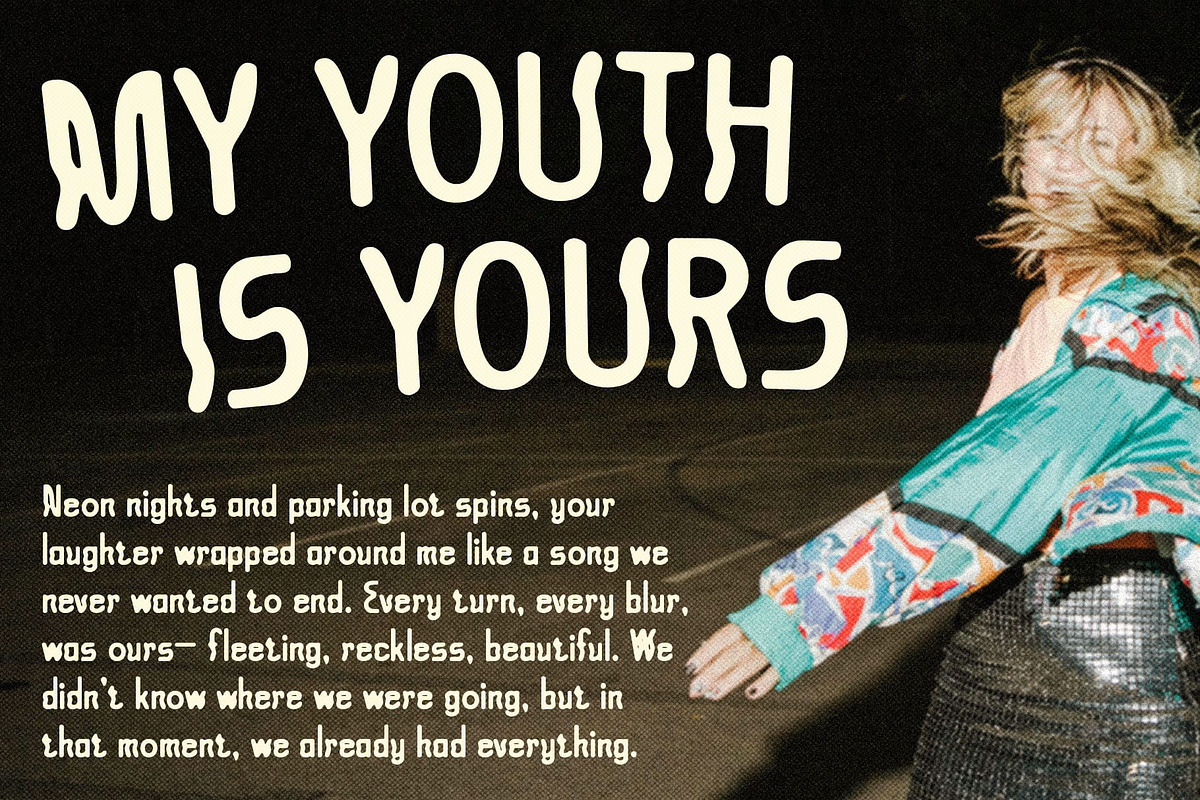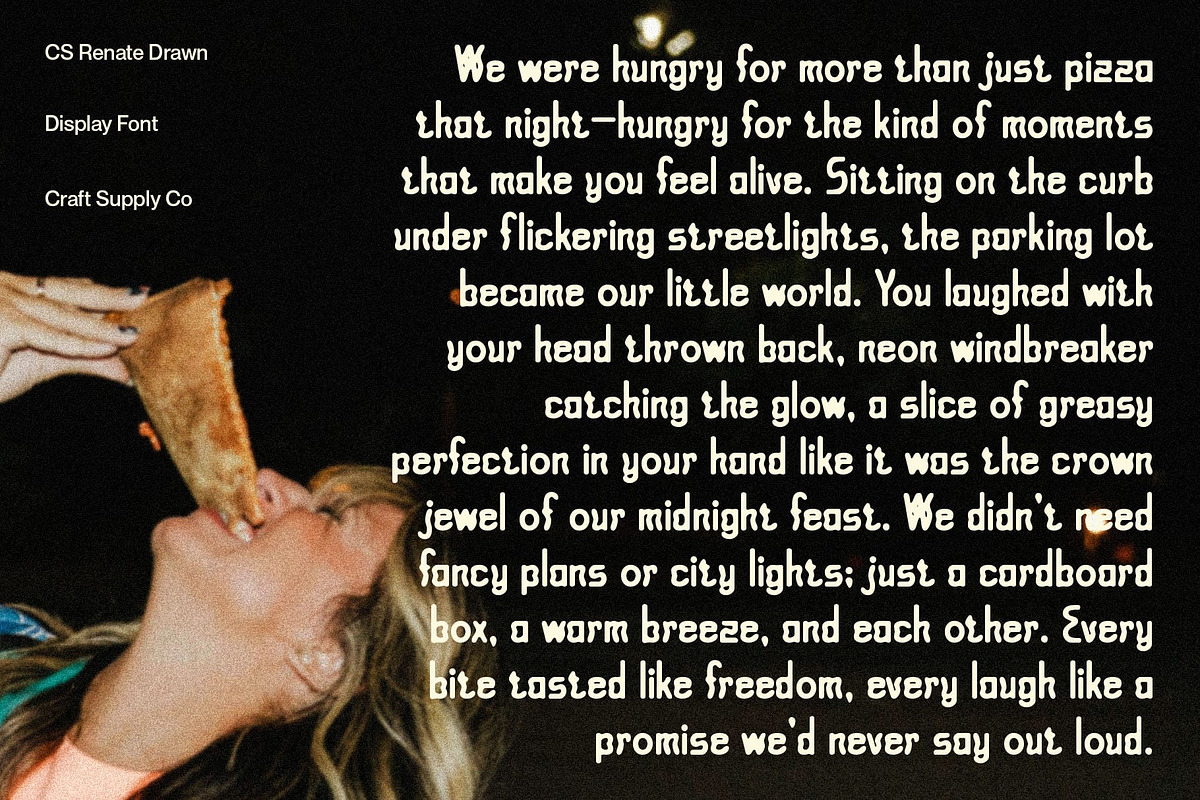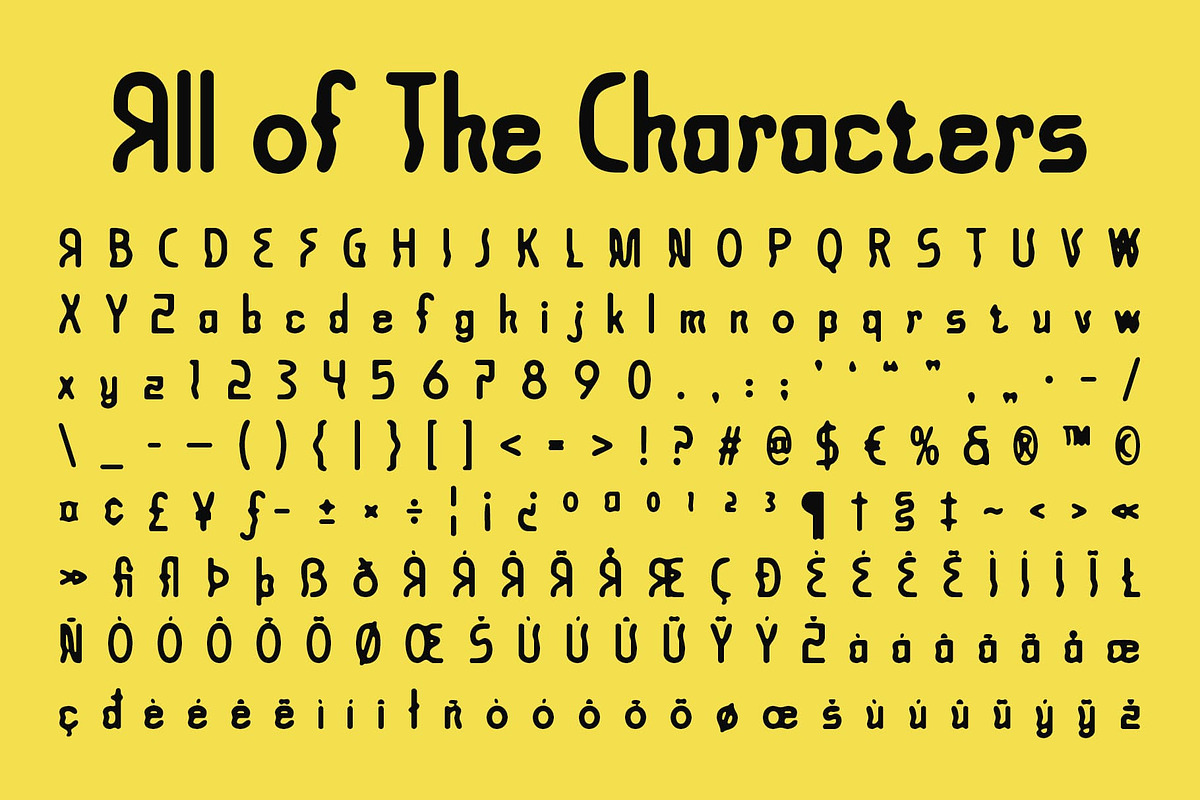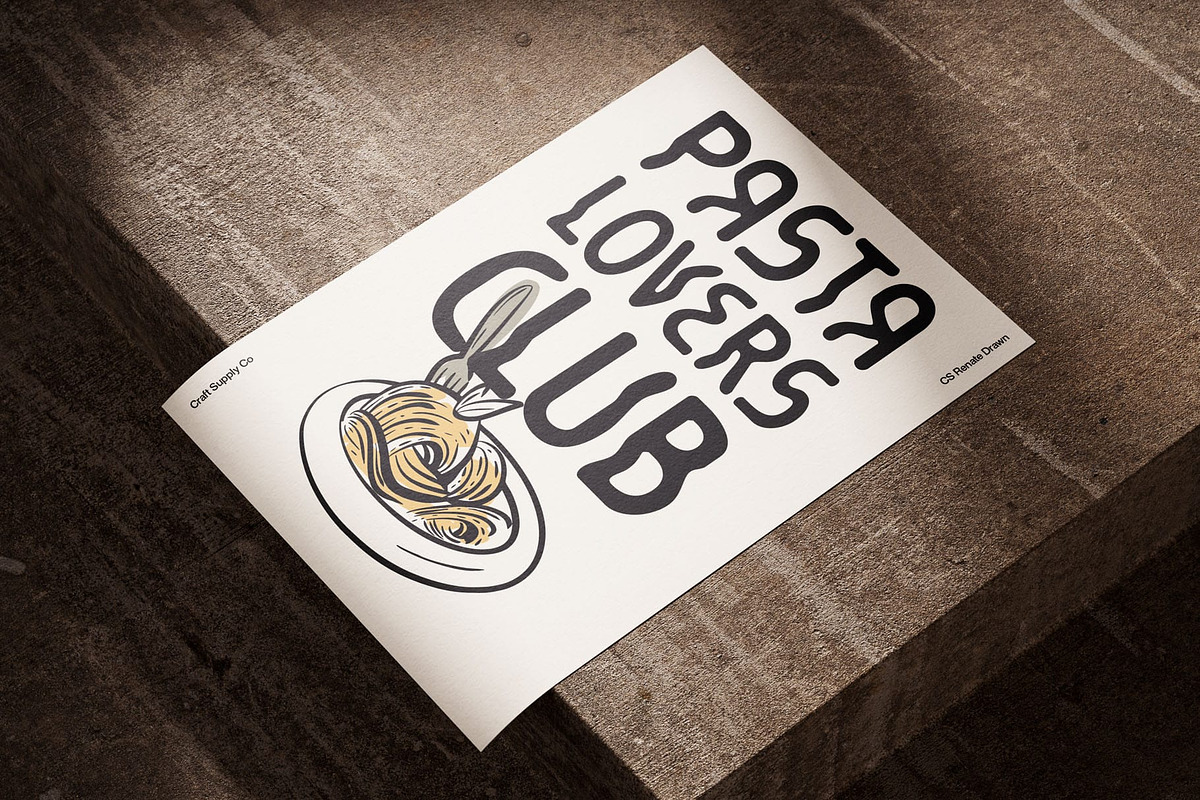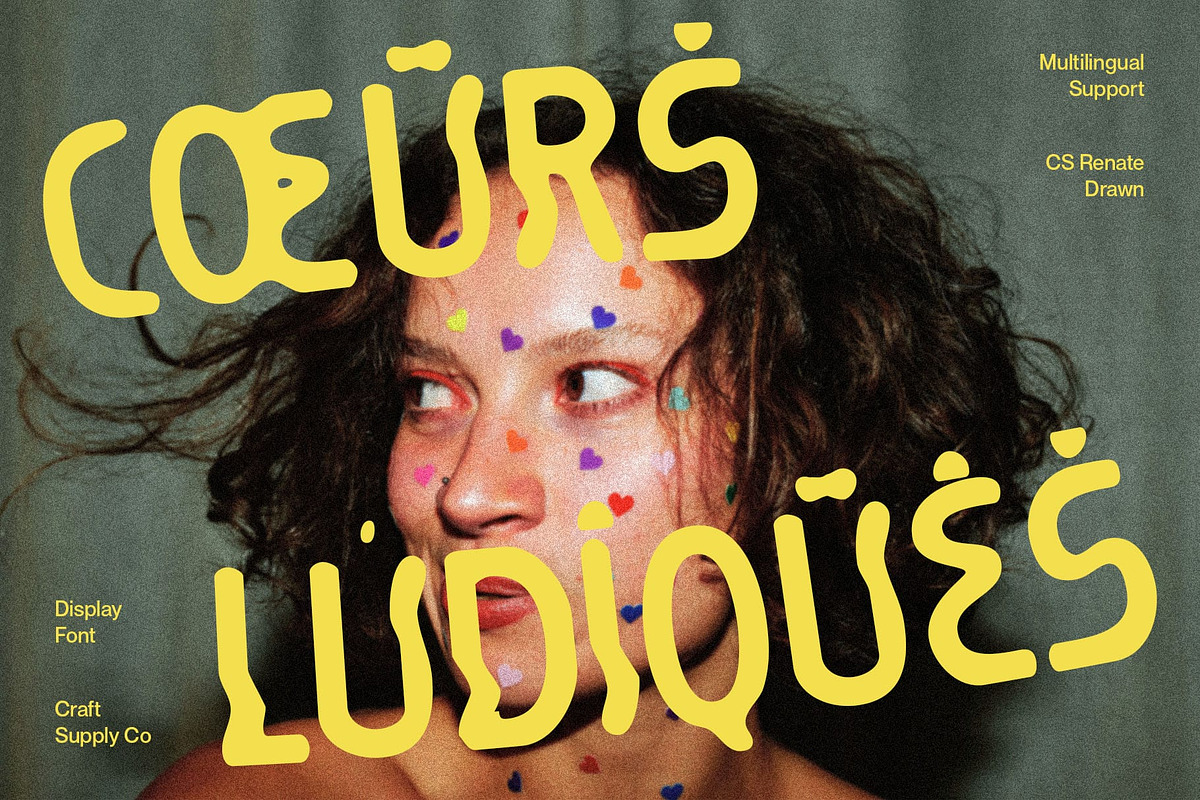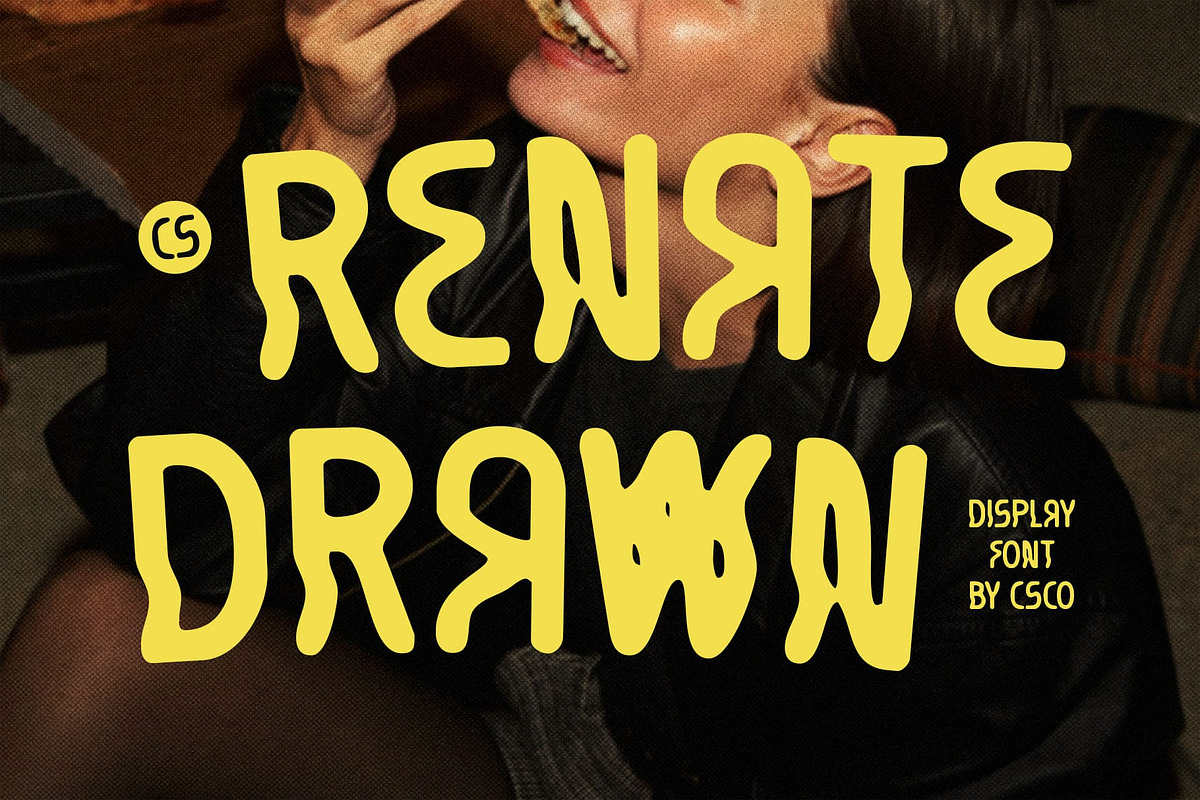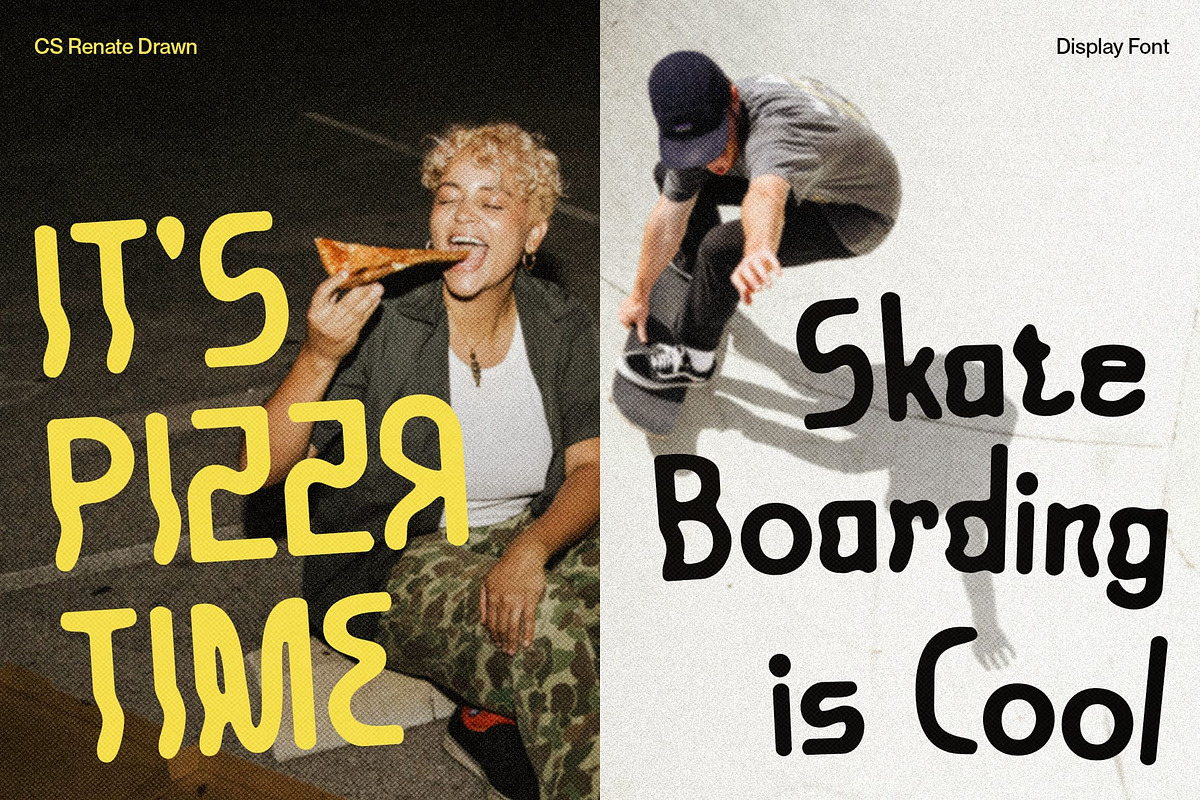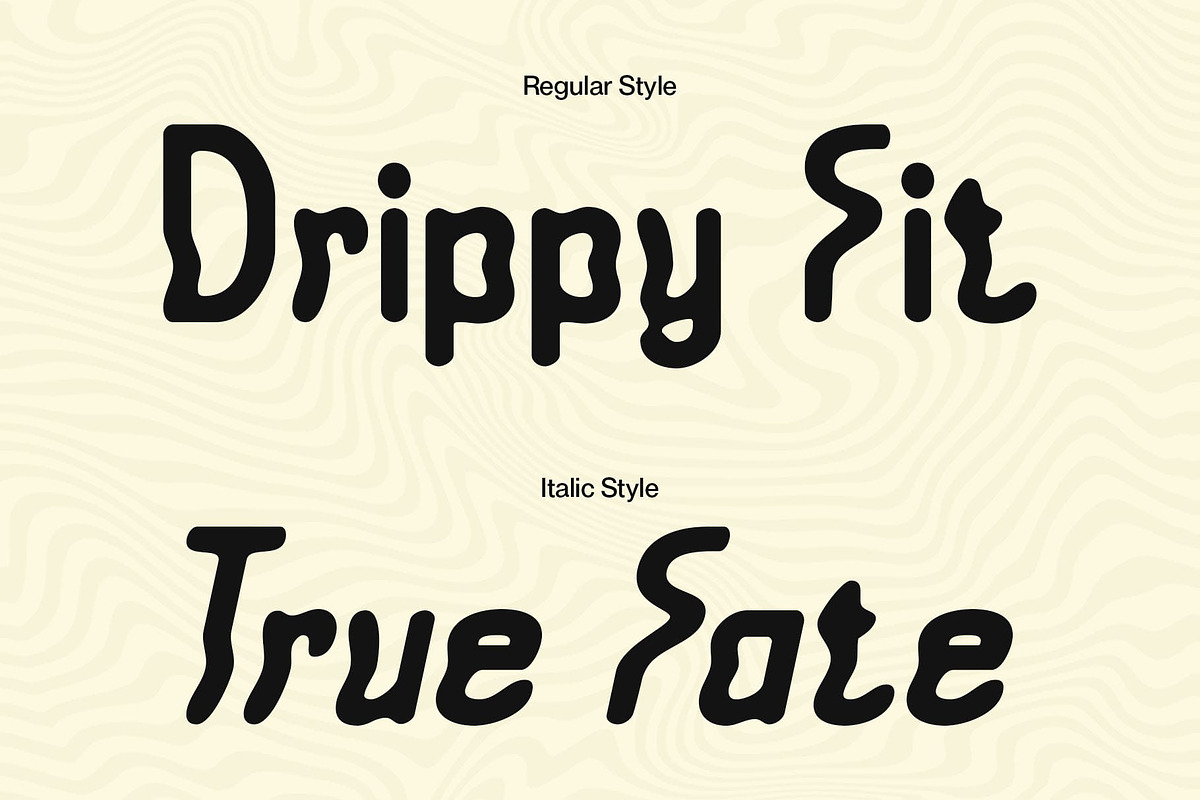
CS Renate Drawn
CS Renate Drawn: Trippy Psychedelic Display with Handmade Flair
Modern Display Font with Psychedelic Style This font is a modern display font featuring dynamic lines and unconventional, trippy letterforms. Its psychedelic style creates a funky, energetic, and visually captivating appearance, perfect for designs that aim to stand out.
Handmade Texture for Artistic Expression Enhanced with a subtle drawn effect, each character carries a handcrafted texture, adding depth, personality, and playful artistry. The handmade detailing makes the typeface lively, expressive, and visually engaging.
Funky, Unconventional Shapes This unique and distinctive font combines modern display clarity with psychedelic, curving shapes that challenge conventional letterforms. This fusion of creativity and structure gives designs a unique and memorable edge, capturing attention immediately.
Ideal for Bold and Creative Projects Perfect for posters, branding, music designs, or any creative project, this expressive and energetic font brings energy, imagination, and individuality. Its combination of trippy shapes and handcrafted nuances ensures your designs feel fun, vibrant, and distinctive.
Elevate Designs with Expressive Personality With its dynamic forms, psychedelic curves, and artisanal texture, this artistic and handmade font transforms ordinary text into a visual statement. It’s a versatile font for projects that want to be bold, playful, and artistically memorable.